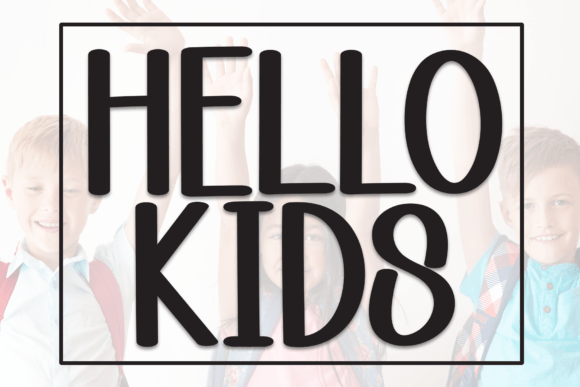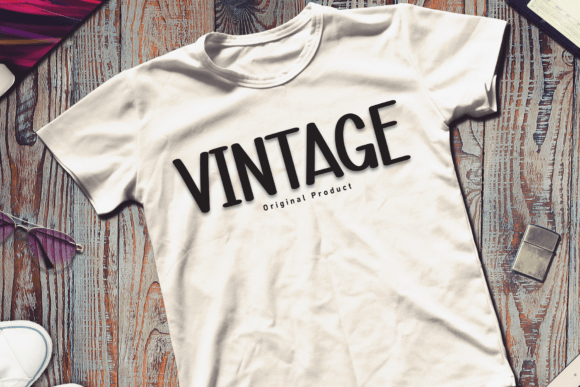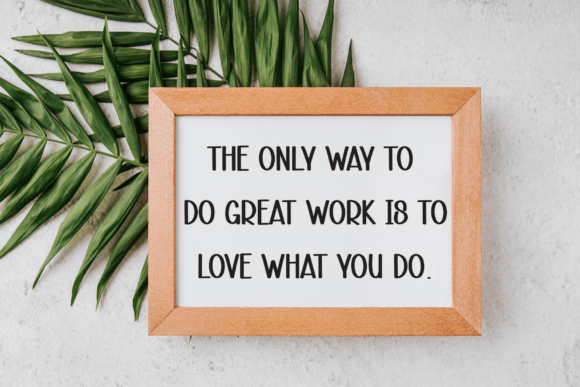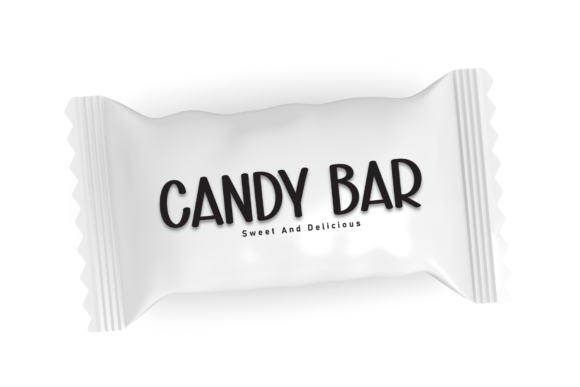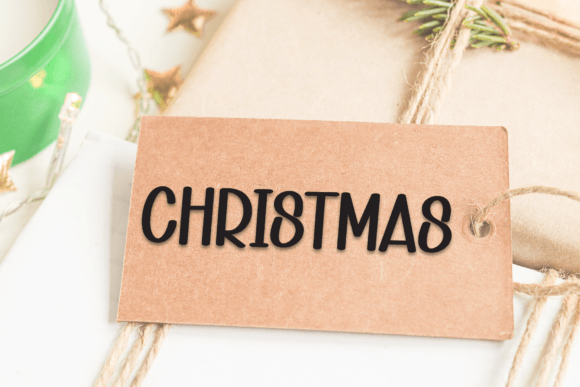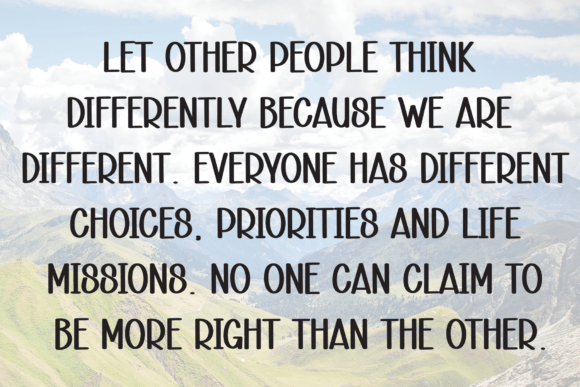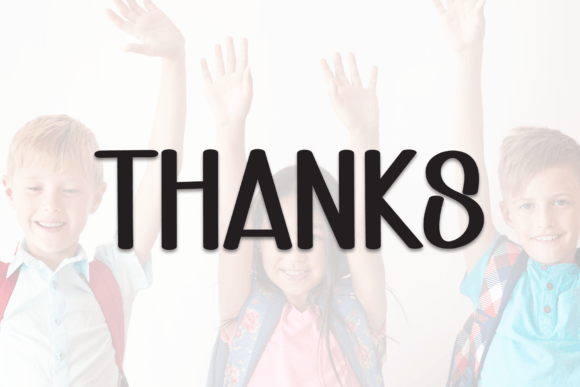
Discover the Joy of Handwritten Typography
As a designer, there’s nothing quite like the thrill of bringing a creative vision to life. It’s the moment when the perfect font, color palette, and composition come together to convey your message in a way that truly resonates with your audience. For me, that moment often starts with the humble, yet oh-so-powerful, Hello Kids Font.
Also known as Sweet Friend, this delightful display typeface is more than just a font – it’s an invitation to connect with your readers on a personal level. With its playful, handwritten flair, Sweet Friend adds a touch of warmth and whimsy to any design project, from wedding invites to heartfelt greeting cards. Whether you’re a seasoned designer or just starting out, this charming font is a valuable addition to your creative toolkit.
Hello Kids Font Key Features
- Font Family: Hello Kids Font is a playful, child-friendly font designed to engage young readers.
- Character Count: The font includes a vast range of characters, including uppercase and lowercase letters, numbers, and punctuation marks.
- Unique Characteristics: The font features rounded edges, smooth curves, and a friendly feel, making it ideal for children’s books, educational materials, and other youth-focused content.
Designer Review: Hello Kids Font
Hello Kids Font is a fun, playful font that I’ve had the pleasure of working with. Here are my honest thoughts.
- Colorful and vibrant aesthetic that’s perfect for kids’ content
- Easily readable, even at smaller font sizes
- A wide range of characters, including emojis and special symbols
- Supports various languages, making it a great option for international projects
- Not suitable for formal or professional content
- Lack of sophistication in design may not appeal to older audiences
- No bold or italic weights, which may limit its use in certain situations
- Not ideal for text-heavy content due to its playful, casual feel
Hello Kids Font is a solid choice for projects that require a fun, energetic vibe. While it may not be suitable for every project, its strengths make it a great option for kids’ content, educational materials, and other playful applications.
Use Hello Kids Font for creating engaging children’s materials, such as educational posters, worksheets, and storybooks. Tips for getting the most out of it include:
- Combine Hello Kids Font with other playful fonts for a unique look.
- Use it for headings and titles to draw attention and emphasize important information.